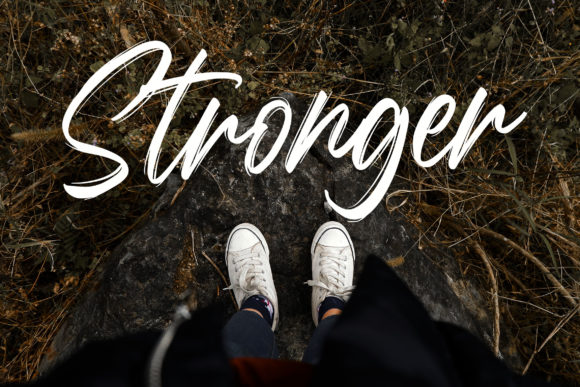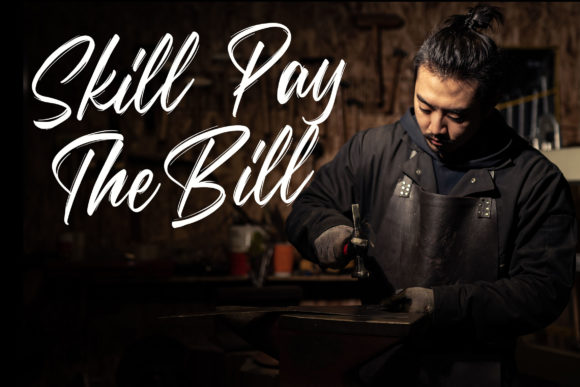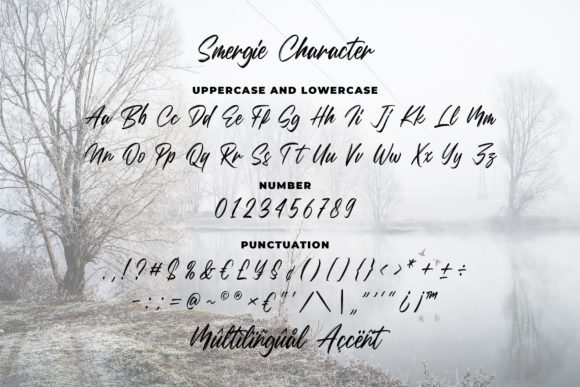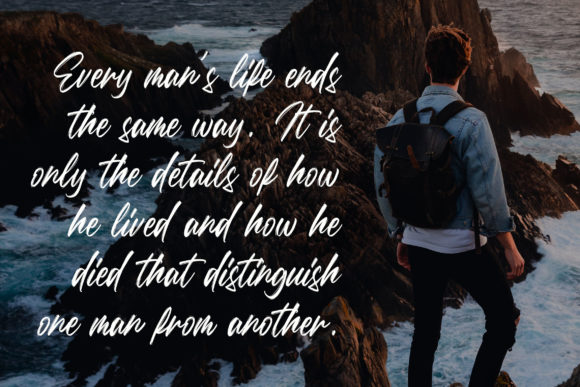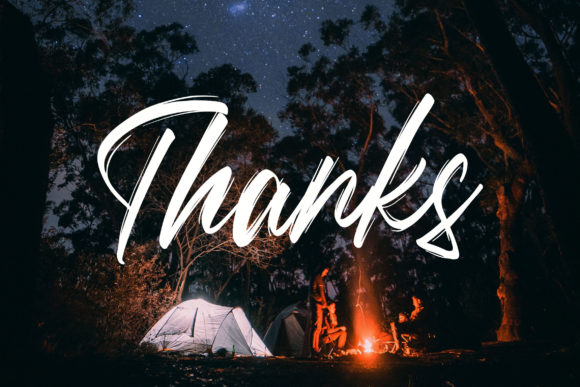
Introduction to Smergie Font
Smergie is a sweet and cool script font with a bold twist.
It will turn any design idea into a true standout .
Key Features of Smergie Font